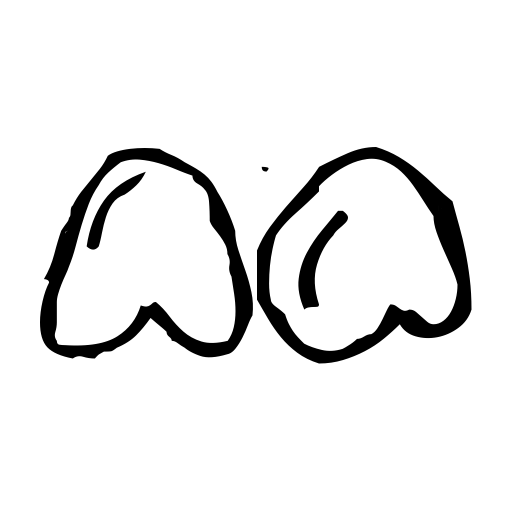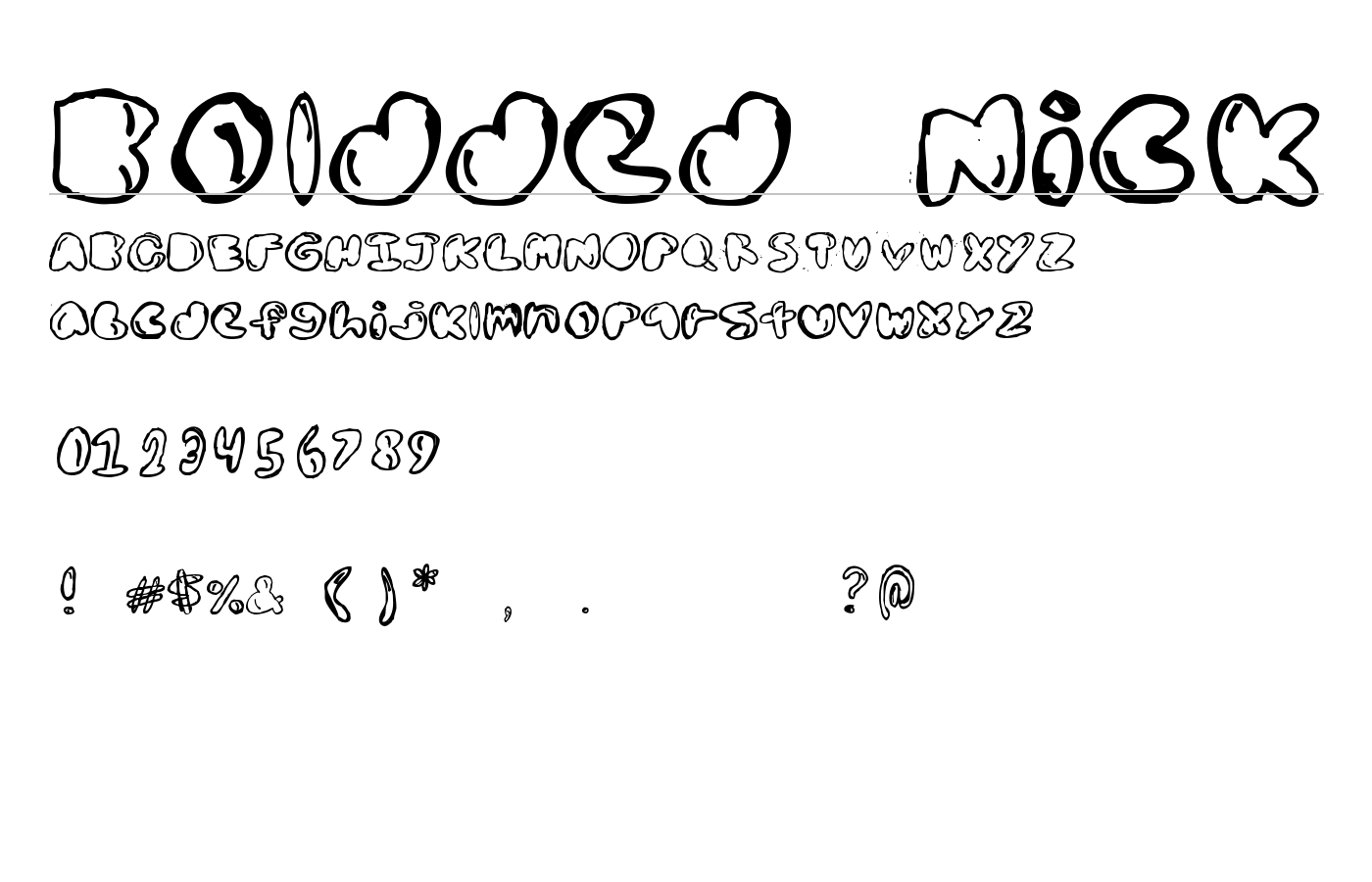
Boldded Nick is a playful and bold handwritten font with a chunky, irregular form that gives it a fun and casual personality. Its thick, uneven strokes and whimsical letter shapes make it ideal for creative and informal designs, perfect for eye-catching headlines, posters, or children's branding. This font brings a lively, energetic feel that stands out in vibrant and youthful contexts.
Boldded Nick Font